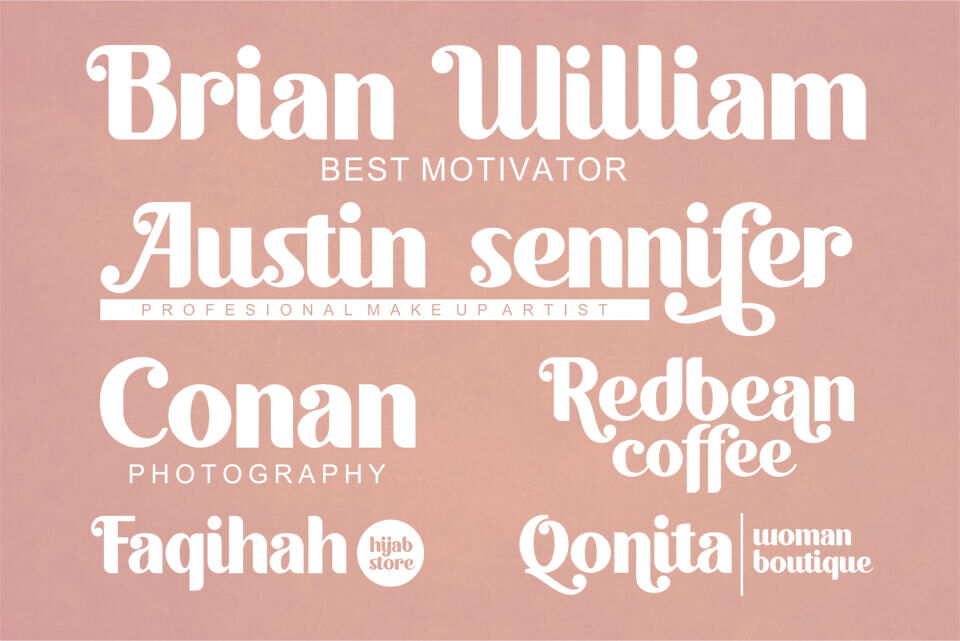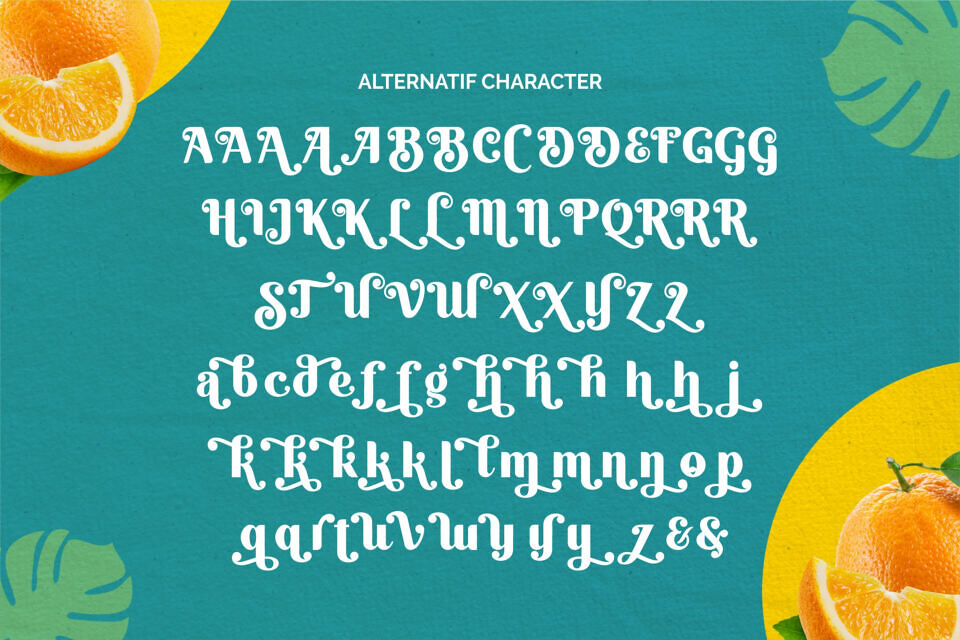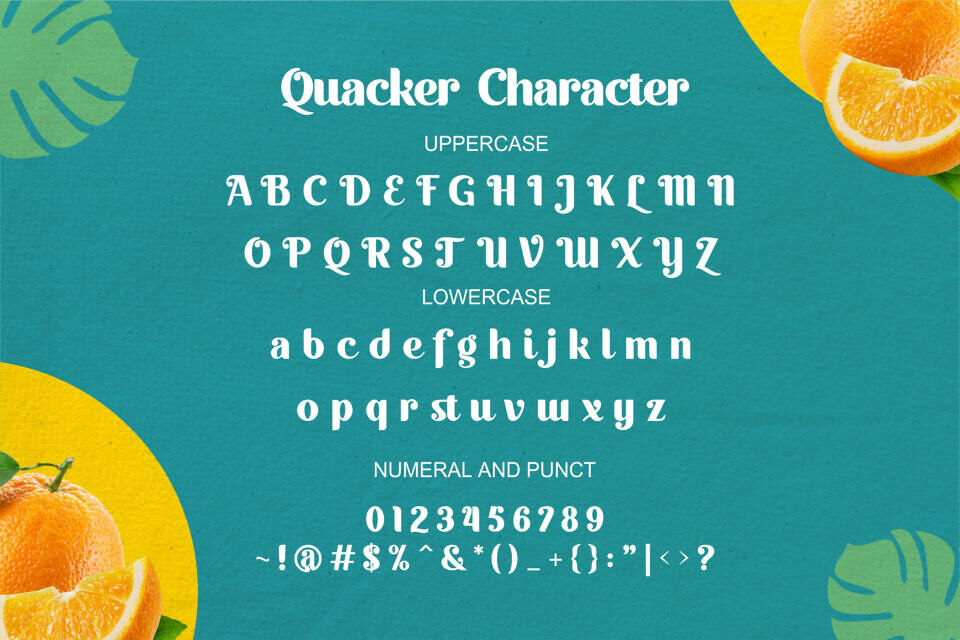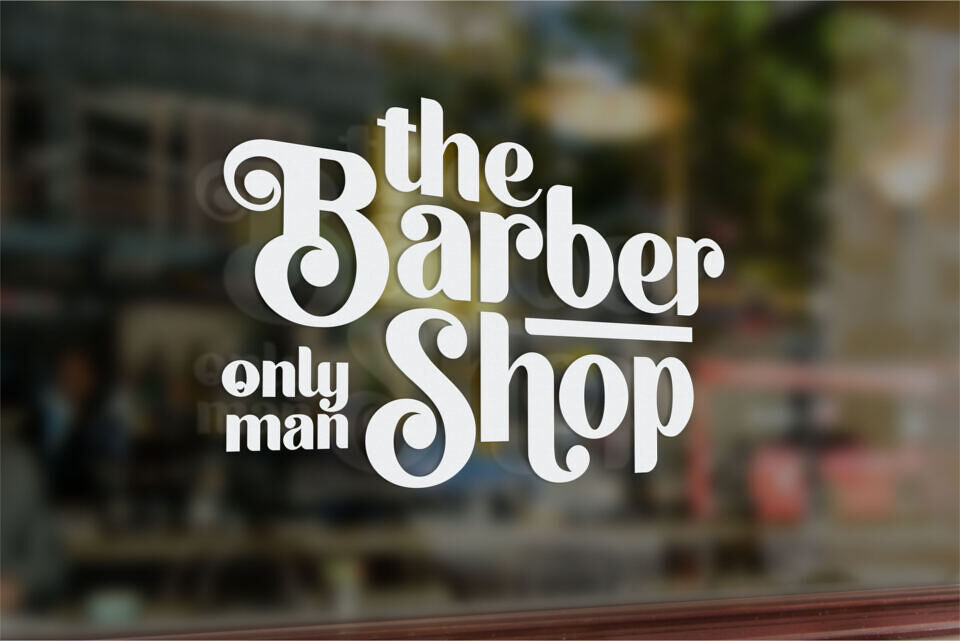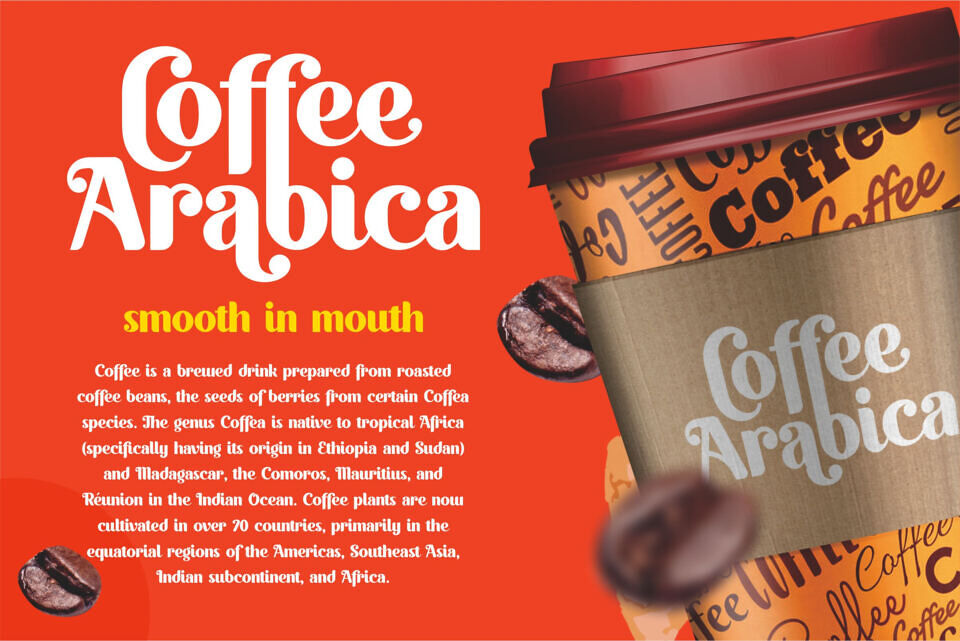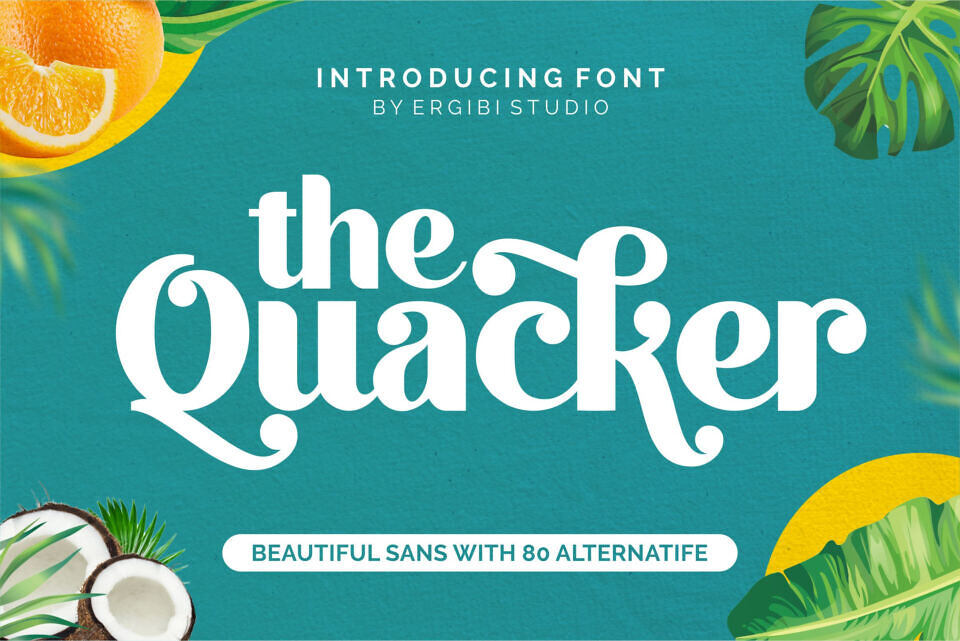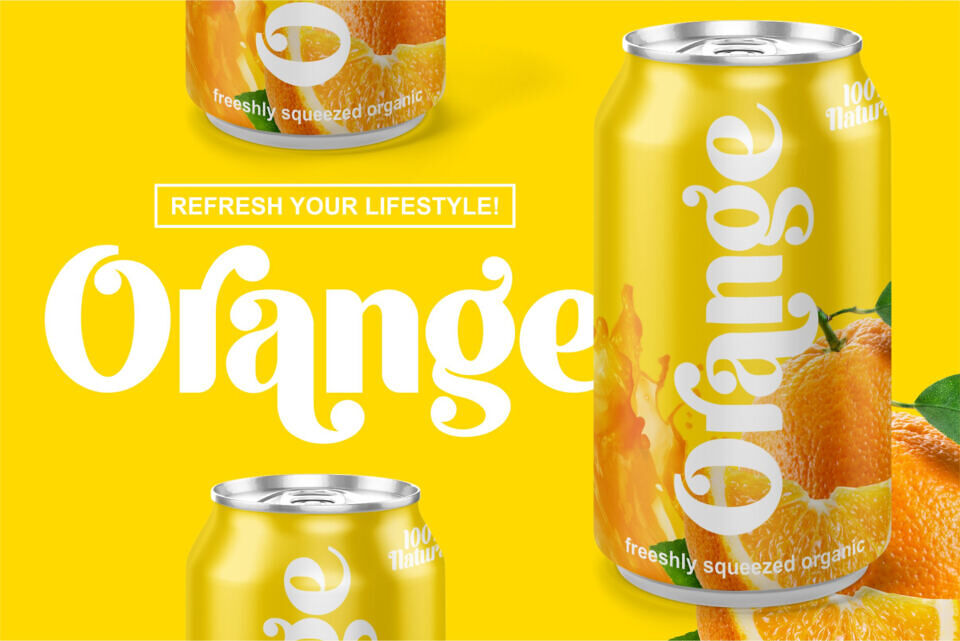
Quacker Font
Quacker is a bold retro display font by Ergibi Studio, designed to bring vintage charm and playful personality to modern designs. With stylish serif details and over 80 alternate characters, it’s perfect for logos, packaging, posters, invitations, branding, and social media graphics.
Its handcrafted look combines classic elegance with a fun, eye-catching feel, making any headline or title stand out with character and creativity.